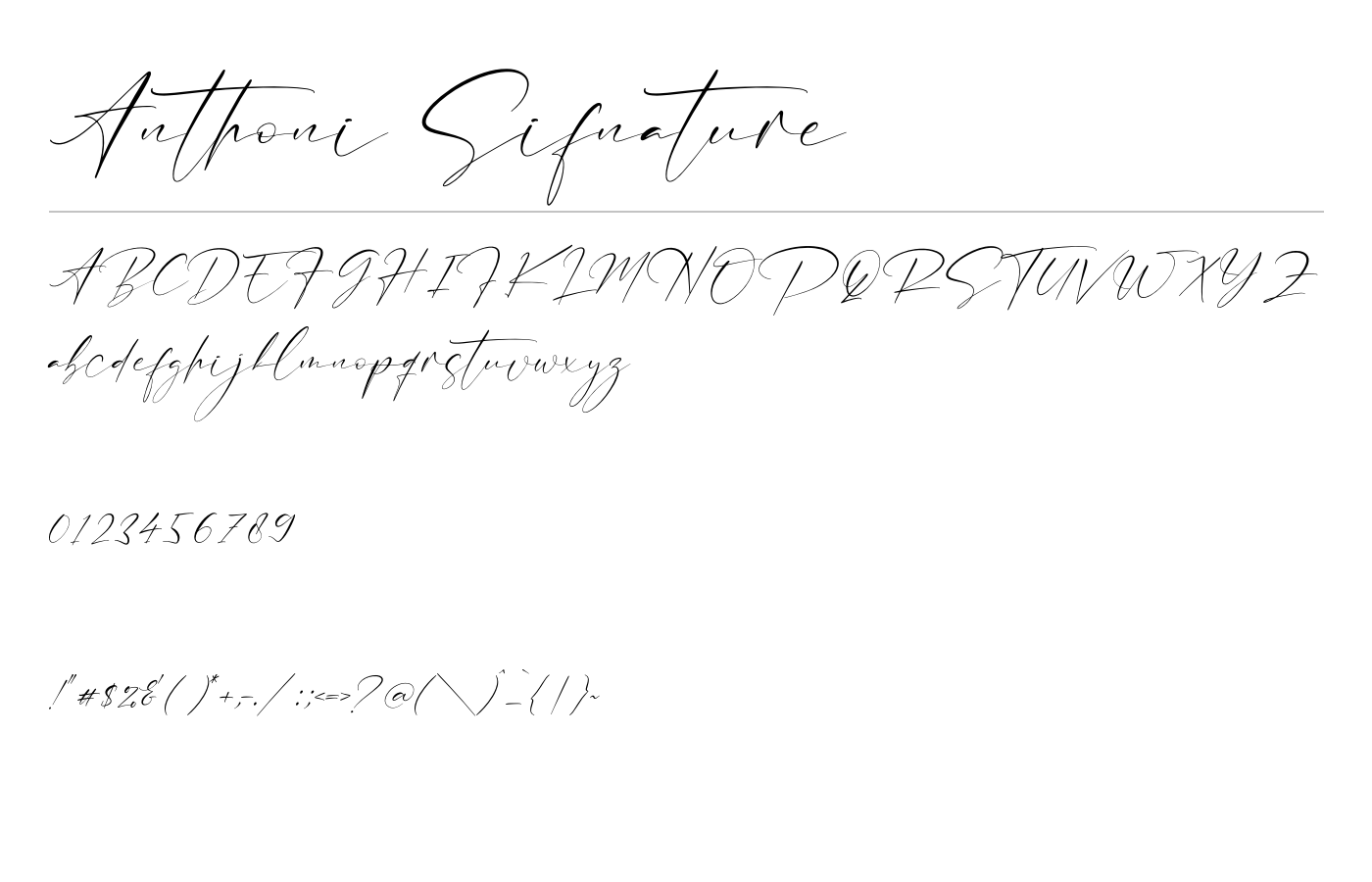
Anthoni Signature is a delicate and elegant script font that mimics natural handwriting with fine, flowing strokes and slender letterforms. Its light weight and graceful style make it perfect for personal branding, invitations, and luxury design projects where a touch of sophistication and charm is desired. This font works beautifully in logos and headlines, adding an intimate and artistic feel to any creative work.
Anthoni Sifnature Font
About Anthoni Sifnature Font
| Font family | Anthoni Sifnature Font |
| Designer | Nanang Jamaludin |